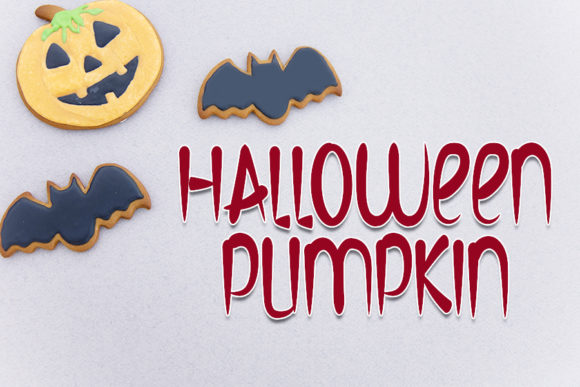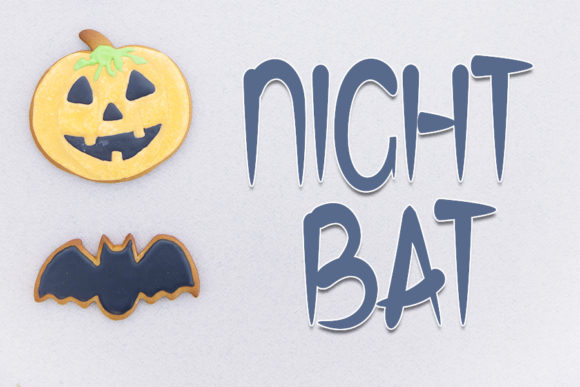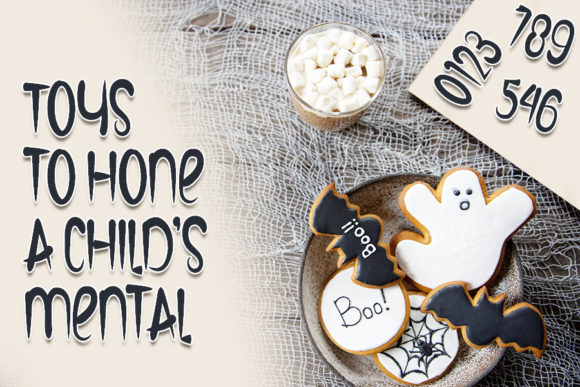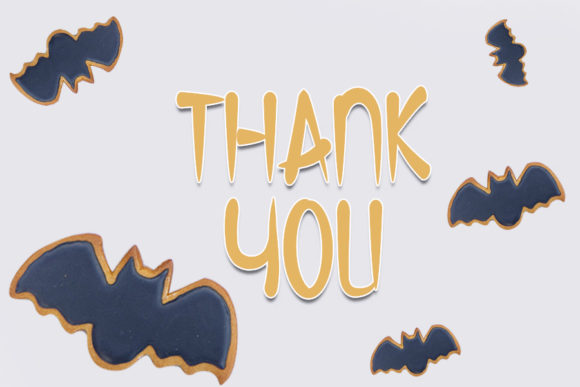
Baby Monster Font: The Perfect Addition to Your Halloween Designs
Are you looking for a font that will make your Halloween designs stand out from the crowd? Look no further than the Baby Monster Font. This modern and spooky display font is perfect for adding a touch of eerie elegance to your designs. In this article, we’ll take a closer look at the Baby Monster Font and how you can use it to create eye-catching Halloween designs.
What is Baby Monster Font?
Baby Monster Font is a unique and creative font that is specifically designed for Halloween-themed designs. It features a modern and spooky style that is sure to grab attention. The font is perfect for creating eye-catching titles, headings, and captions for your Halloween designs. With its bold and edgy look, it’s ideal for making a statement.
Key Features of Baby Monster Font
- Modern and Spooky Design: The Baby Monster Font features a modern and spooky design that is perfect for Halloween-themed designs.
- Display Font: This font is specifically designed as a display font, making it perfect for titles, headings, and captions.
- Eerie Elegance: The font adds a touch of eerie elegance to your designs, making them stand out from the crowd.
How to Use Baby Monster Font in Your Halloween Designs
Using the Baby Monster Font in your Halloween designs is easy. Here are a few tips to get you started:
- Create Eye-Catching Titles: Use the Baby Monster Font to create eye-catching titles for your Halloween designs. You can use it to create titles for your Halloween party invitations, flyers, and posters.
- Add a Spooky Touch: Add a spooky touch to your Halloween designs by using the Baby Monster Font. You can use it to create captions and headings for your Halloween-themed designs.
- Make it Bold: Make your Halloween designs bold and eye-catching by using the Baby Monster Font in large sizes.
Benefits of Using Baby Monster Font
There are several benefits to using the Baby Monster Font in your Halloween designs. Here are a few:
- Unique and Creative: The Baby Monster Font is a unique and creative font that will make your Halloween designs stand out from the crowd.
- Easy to Read: Despite its bold and edgy look, the Baby Monster Font is easy to read, making it perfect for creating titles and headings.
- Versatile: The Baby Monster Font is versatile and can be used in a variety of Halloween-themed designs, from party invitations to posters and flyers.
If you’re a designer or crafter looking to use the Baby Monster Font in your Halloween designs, here are a few tips to keep in mind:
- Experiment with Different Sizes: Experiment with different sizes of the Baby Monster Font to create eye-catching titles and headings.
- Pair it with Other Fonts: Pair the Baby Monster Font with other fonts to create a unique and creative look.
- Use it in Combination with Images: Use the Baby Monster Font in combination with images to create a spooky and eye-catching design.
The Baby Monster Font is a modern and spooky display font that is perfect for adding a touch of eerie elegance to your Halloween designs. With its bold and edgy look, it’s ideal for making a statement. Whether you’re a designer or crafter, the Baby Monster Font is a great addition to your font collection. So why not give it a try and see how it can elevate your Halloween designs?